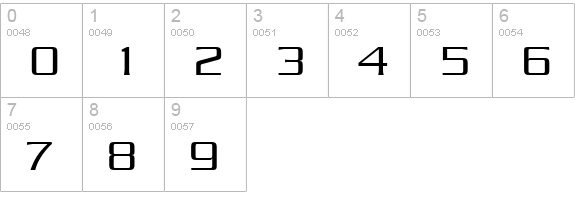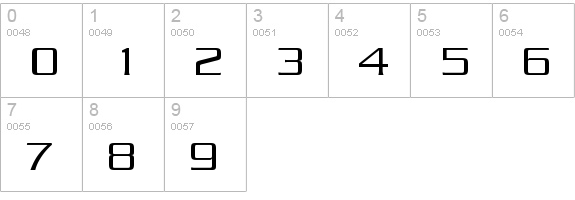
Sekunda Font Details
Introducing Sekunda font, a modern and versatile typeface that exudes elegance and sophistication. With its sleek lines and clean design, Sekunda is perfect for a wide range of projects, from branding to editorial design to web design. This font strikes the perfect balance between classic and contemporary, making it a timeless addition to any designer's toolkit. What sets Sekunda font apart is not only its stunning aesthetics but also its accessibility. This font is available for free download at FontsMarket.com, allowing designers of all levels to elevate their projects with this premium typeface without breaking the bank. Whether you're working on a logo, a website, or a print layout, Sekunda font will provide a polished and professional look that will impress clients and audiences alike. Don't miss out on the opportunity to enhance your design projects with Sekunda font. Download it for free today at FontsMarket.com and experience the endless possibilities this versatile typeface has to offer.